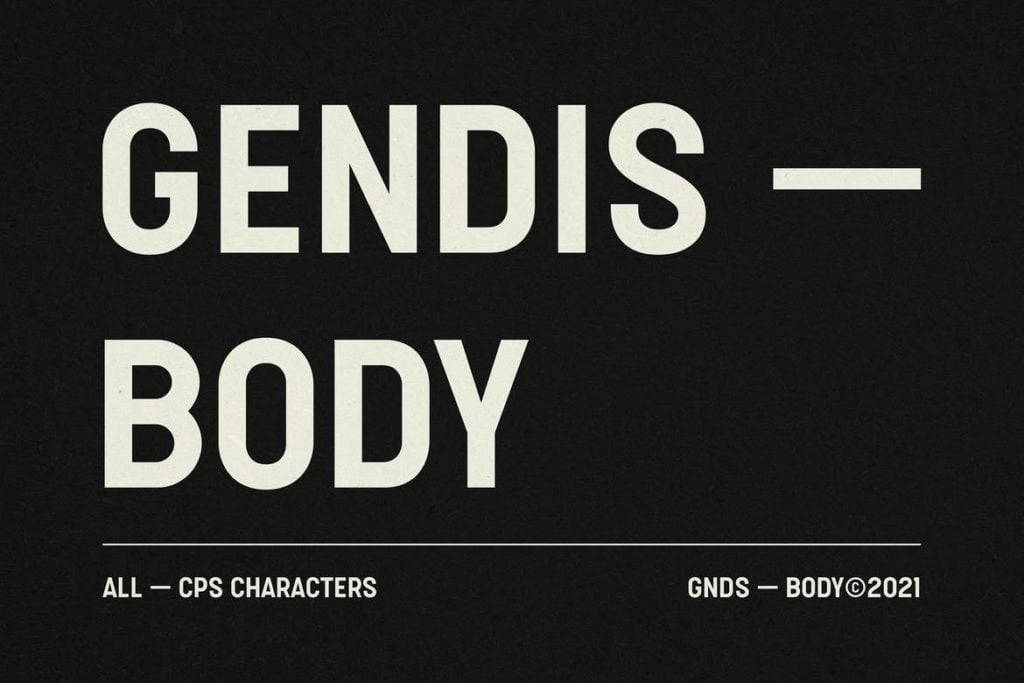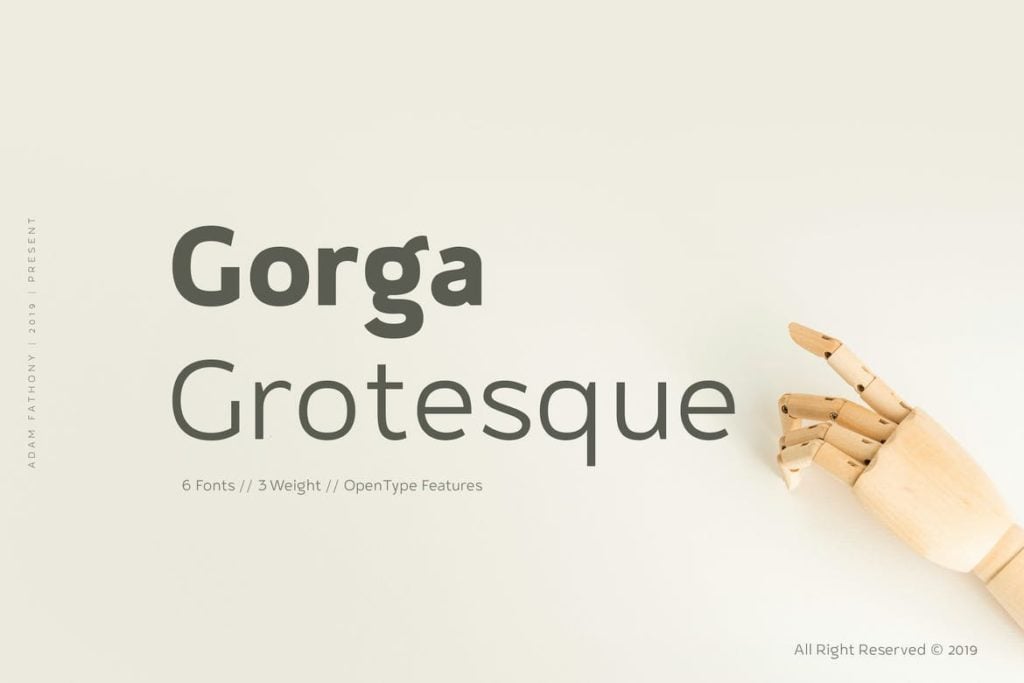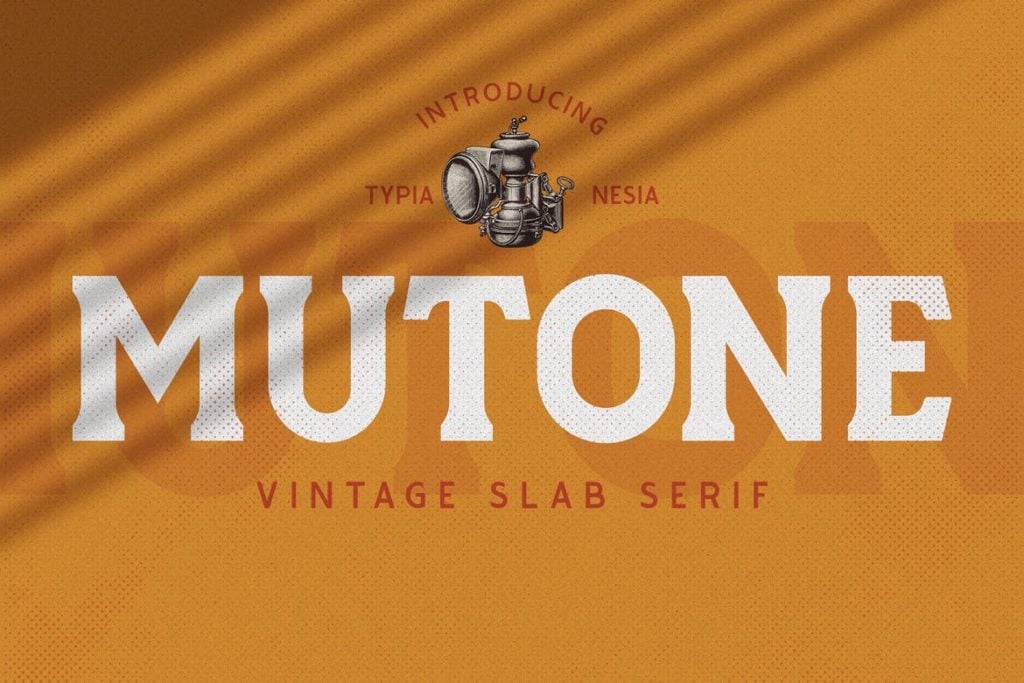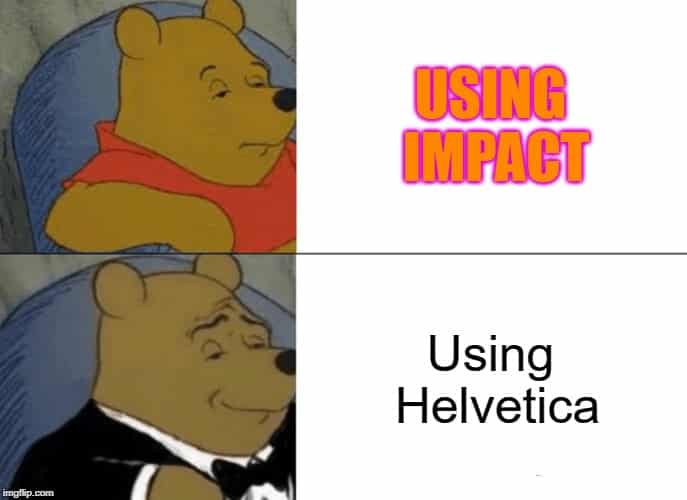
20+ Best Meme Fonts for Hilarious Antics
One of the best methods to share fun and pleasure online is through memes. The best meme fonts can determine the effectiveness of marketing products.
There must be more than a clever title or humorous image to make a meme successful. Sometimes choosing the right font might mean the difference between a meme going viral and one that fades.
Memes are effective tools that allow brands, leaders, and individuals to interact by making light-hearted jokes or discussing societal issues.
Pick a font that goes well with your antics and garners positive feedback. By avoiding the same fonts, you can end the lack of inventiveness.
3 Most Popular Meme Fonts
Meme Fonts
Looking for classic meme fonts? You’ll want to go for these free meme fonts:
10+ Best Meme Fonts (2023)
For more creative meme fonts, check out these meme font alternatives:
1. Headlines
2. Gorga Grotesque
3. Gendis Body
4. Mutone
5. Pisang Keju
6. Zamoretta
7. TWIG
8. Breaking The Comic
9. Comic Sidekick
10. Best Friends
20+ Best Meme Fonts for Hilarious Antics
Impact
impact
The most widely used typeface for memes on the internet today is Impact, which makes it easy for designers to make amusing or memorable text-based graphics.
Impact is a strong sans-serif typeface created to exude a sense of urgency and strength.
Designers find it easy to create amusing or memorable text-based graphics using the most widely used typeface for memes on the internet today.
Over the years, numerous well-known memes have employed this font. It has earned iconic status.
It is an easily readable typeface, making them more attention-grabbing.
A substantial, readable, well-known visual approach can deliver a punch line. Distinct letters make it effortless to identify a pattern.
Arial
Arial is frequently utilized for memes because of its simple appearance. When used in unexpected circumstances, this typeface makes a funny contrast.
Arial is a popular sans-serif font that shows each character as a combination of straight and curved lines.
Because of its readability and versatility in expressing various emotions or tones, we believe this typeface is appropriate.
There are a whopping 30 styles in the Arial font family. It ensures you have more typefaces than you need to convey a message.
The font facilitates the visibility and legibility of labels and tags in your memes.
When you utilize this font for subtitles, comprehending them becomes easier.
There’s no reason for anyone not to be familiar with Arial. It’s clean, professional, and easy to understand too. As a result, many make the most of this visual solution to drive a comedic point.
Helvetica
helvetica
Helvetica is a 36-typeface commercial font first published in the 1950s. Among its contemporaries, it is one of the most widely used alternatives.
A font that complements both text and graphics is crucial because memes frequently use both.
Because of its adaptability, Helvetica may be used for both the text and the images in a meme, resulting in a unified and aesthetically pleasing design.
Our group believes this is a well-liked option for making memes. Clean lines and straightforward geometry in the font make it simple to read.